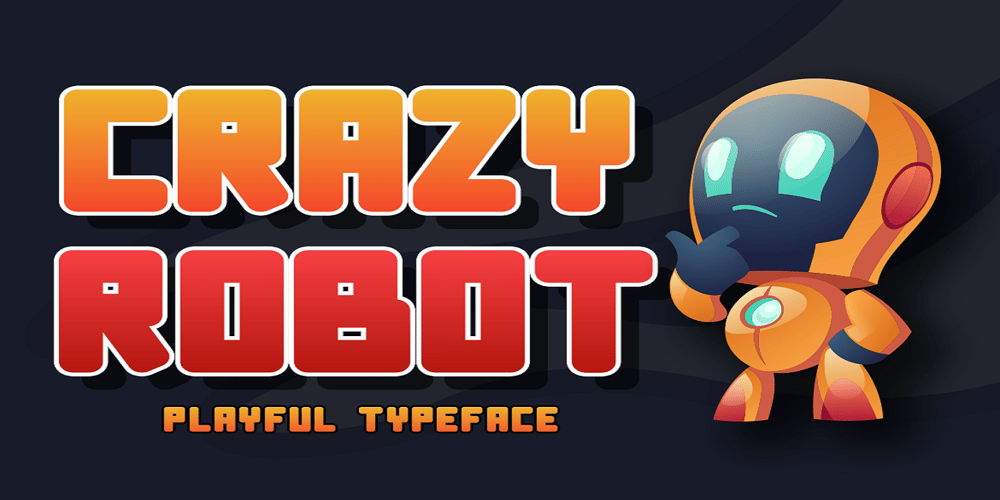
Crazy Robot Font Family was designed by Saiful Anwar and published by Sealoung. Crazy Robot contains 1 styles and family package options. Crazy Robot is a unique and funny font that is suitable for use in game logos, event titles, animal names, movie titles especially in animated films and of course can be used in other designs.What’s Included:- Glyphs- Works on PC & Mac- Simple installation- Can be accessed in Adobe Illustrator, Adobe Photoshop, Affinity Design.- Fonts include multilingual support.Thank you very much, this font will make your project easier. Saiful Anwar – Sealoung studio